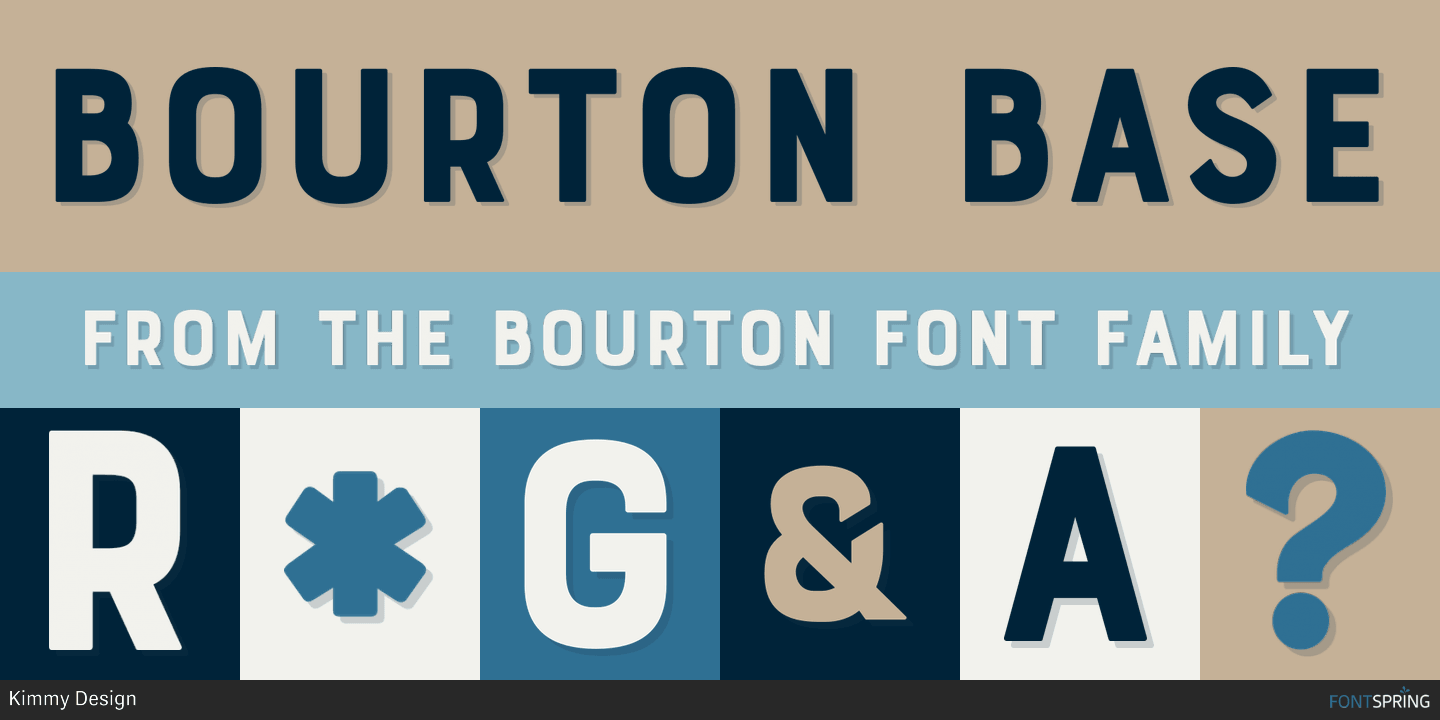
Bourton Base Font Adobe - Bourton is a new typeface by kimmy design. In addition to a new look, it boasts. A serif typeface with 6 styles, available from adobe fonts for sync and web use. This font features bold, uppercase.
Bourton Is A New Typeface By Kimmy Design.
This font features bold, uppercase. A serif typeface with 6 styles, available from adobe fonts for sync and web use. In addition to a new look, it boasts.